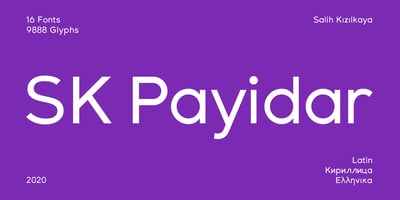
SK Payidar
SK Payidar font
SK Payidar Font Family was designed by Salih Kizilkaya and published by Salih Kizilkaya. SK Payidar contains 13 styles and family package options. SK Payidar is a modern geometric and sans serif font. It was designed by Salih Kizilkaya in 2020, using modern and traditional design styles together in order to keep it up-to-date for many years. It includes all Latin characters and includes basic Cyrillic, Greek characters. It is available in 16 different versions and contains 9888 glyphs in total.